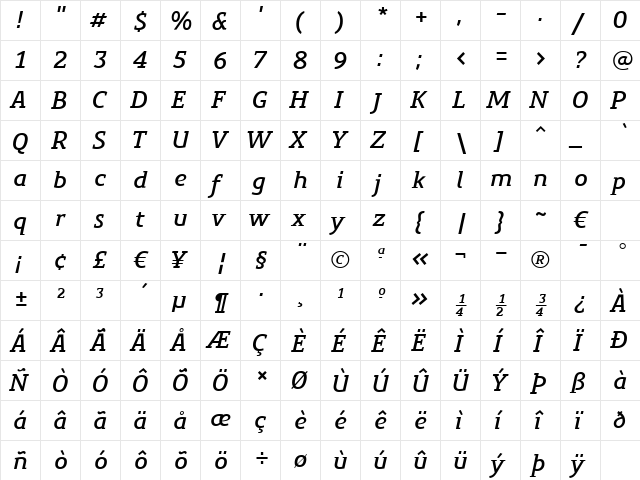
PreciousSerifDemiBoldItalic Regular Font Preview
Design Context for PreciousSerifDemiBoldItalic Typeface
PreciousSerifDemiBoldItalic carries the refined structure of traditional serif typography, with bracketed terminals and considered proportions that communicate credibility and craft. Its italic angle brings a sense of urgency and motion to the letterforms. Its bold stroke weight gives it real presence on the page.
Pro Tip: Use PreciousSerifDemiBoldItalic for editorial body copy and considered headline work. Pair with a neutral sans for UI elements or captions to create a classic hierarchy.